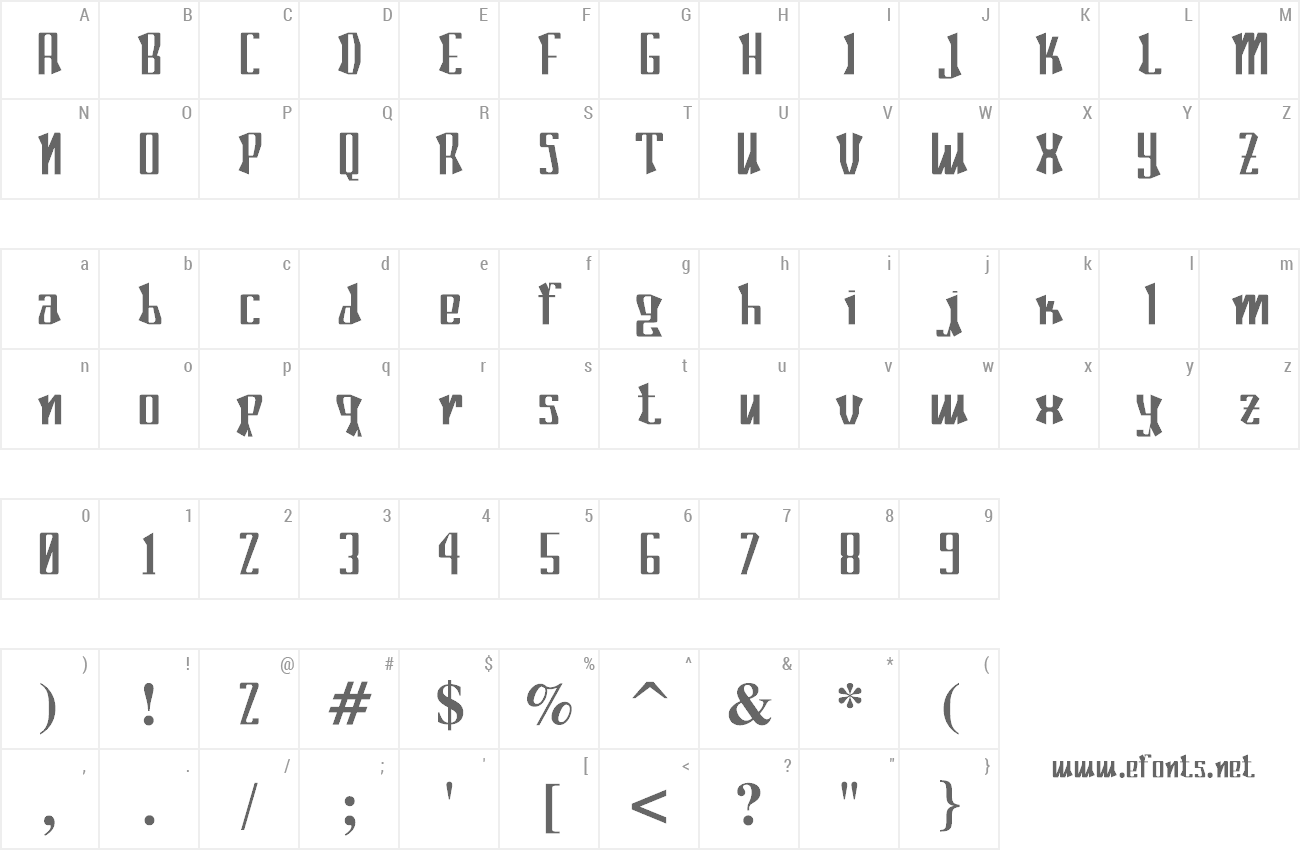
Preview and download Poconeh Font. Created by Eduardo Poconeh in Fancy Various styles
| Font name: | Poconeh |
| Author: | Eduardo Poconeh |
| Note by Eduardo Poconeh | |
Fonte produzida para matéria de tipografia, curso de Design, pela Universidade Federal de Sergipe, Brasil. Font designed in typography classes, graduation in Graphic Design by the Federal University of Sergipe, Brazil. |